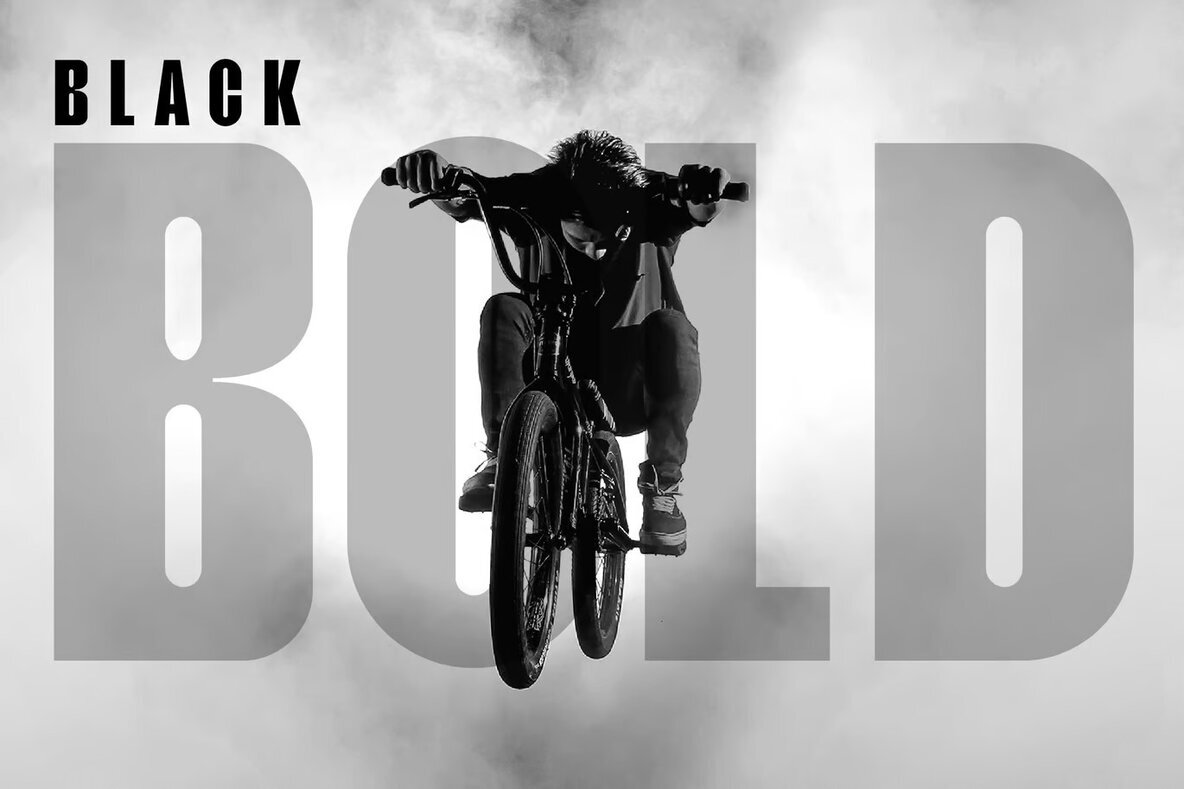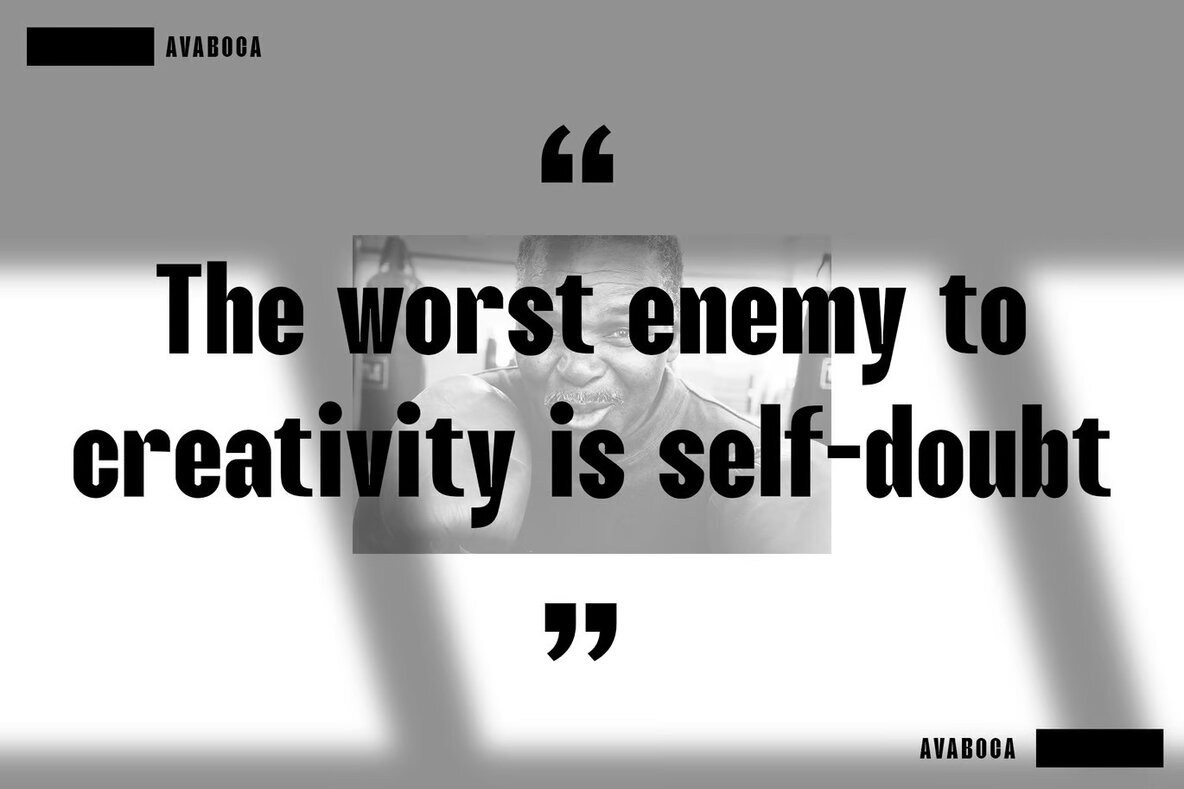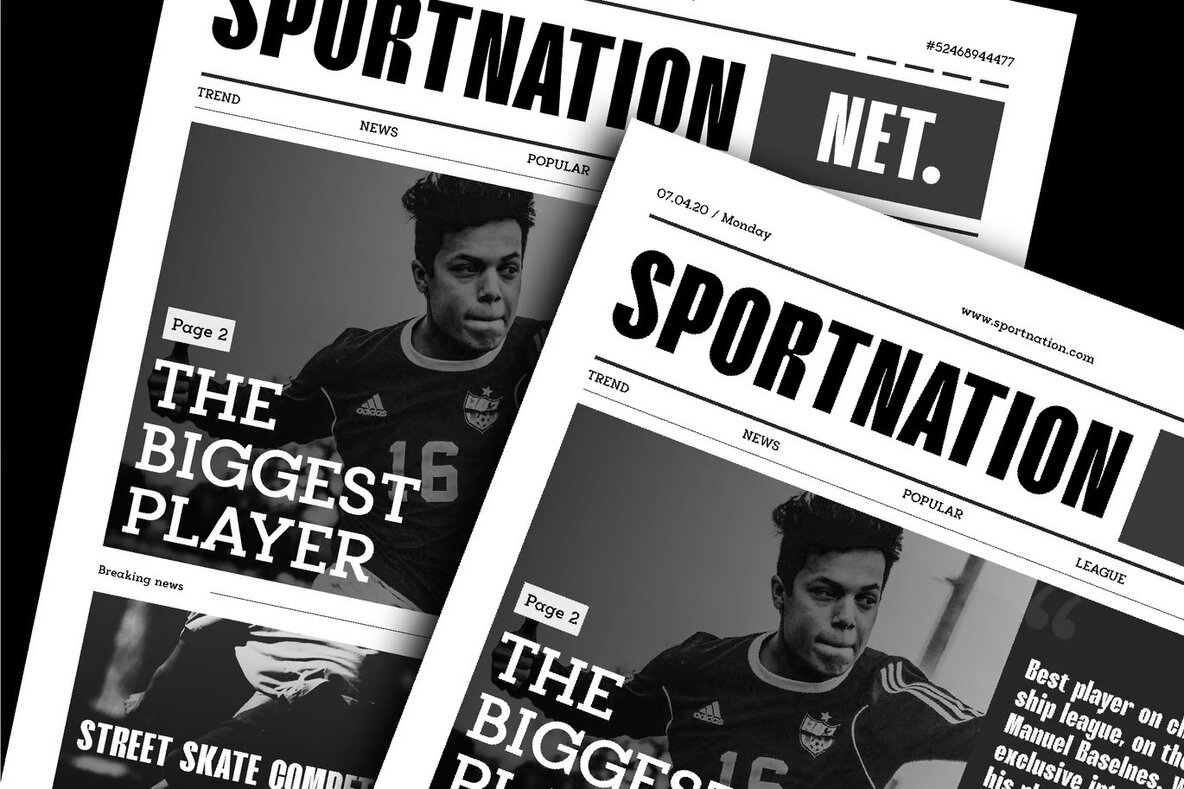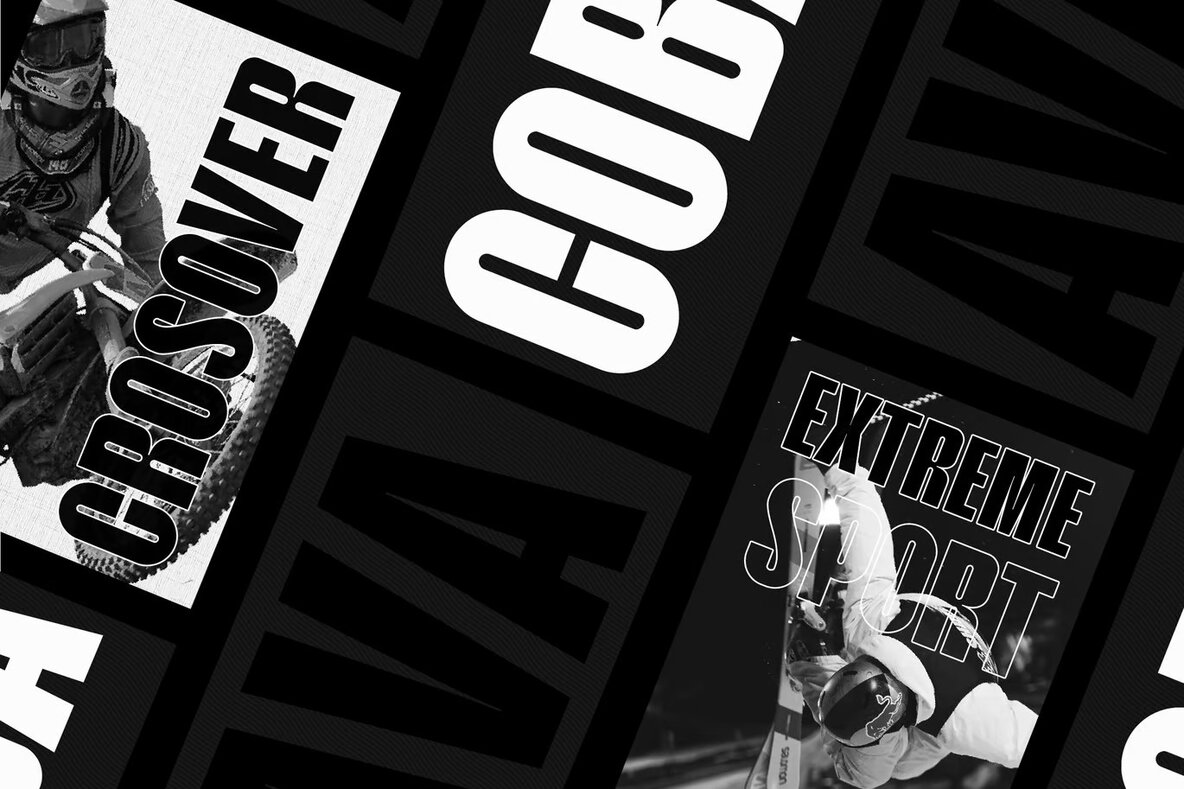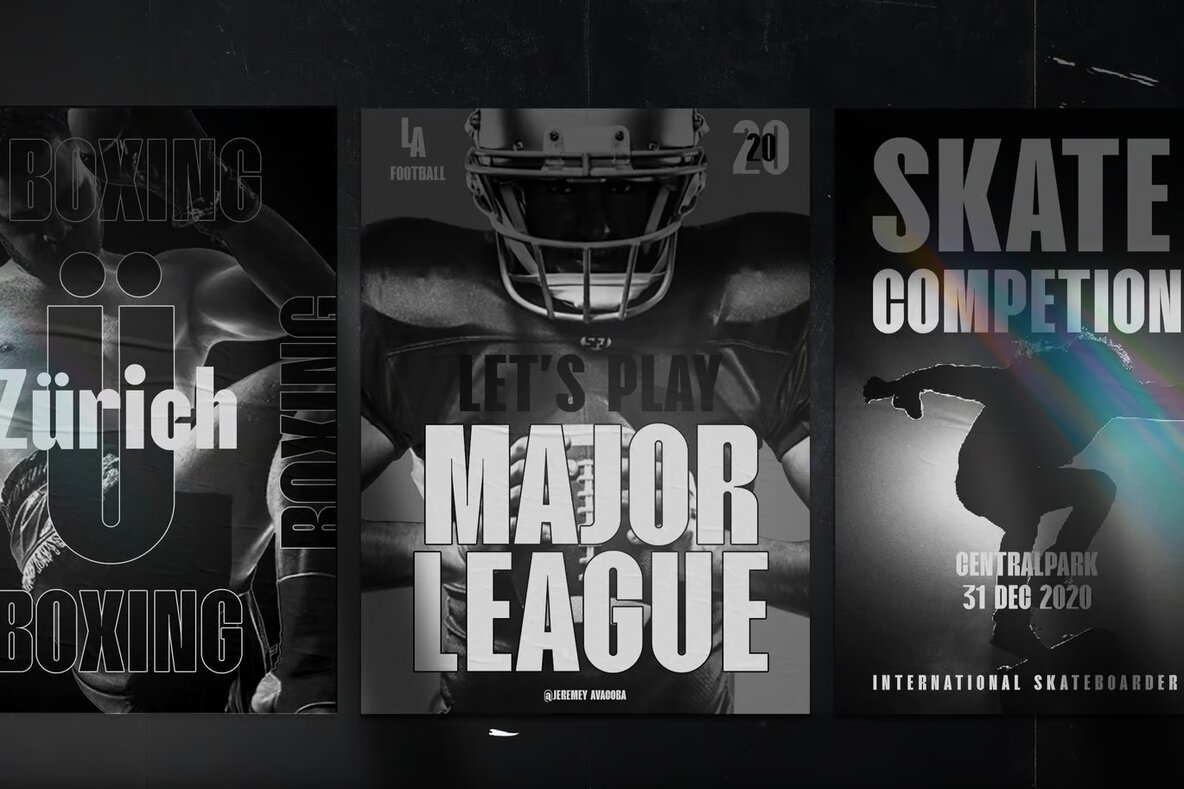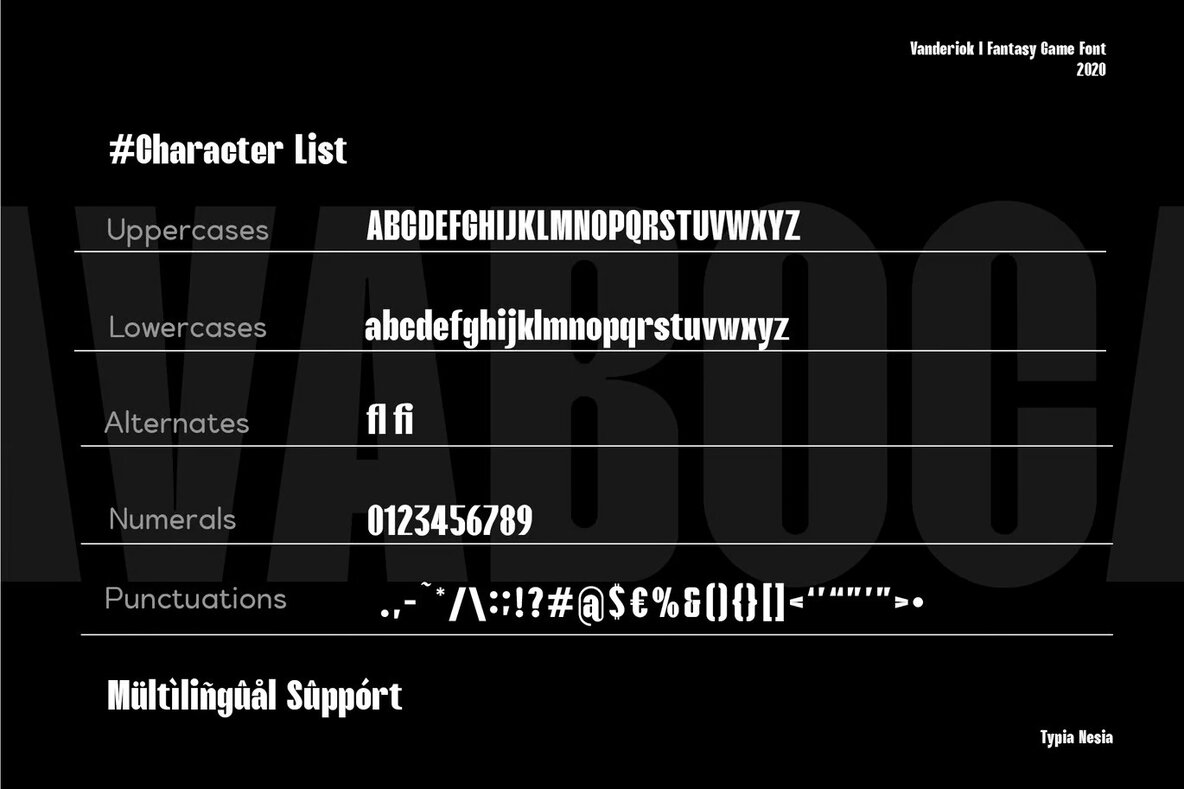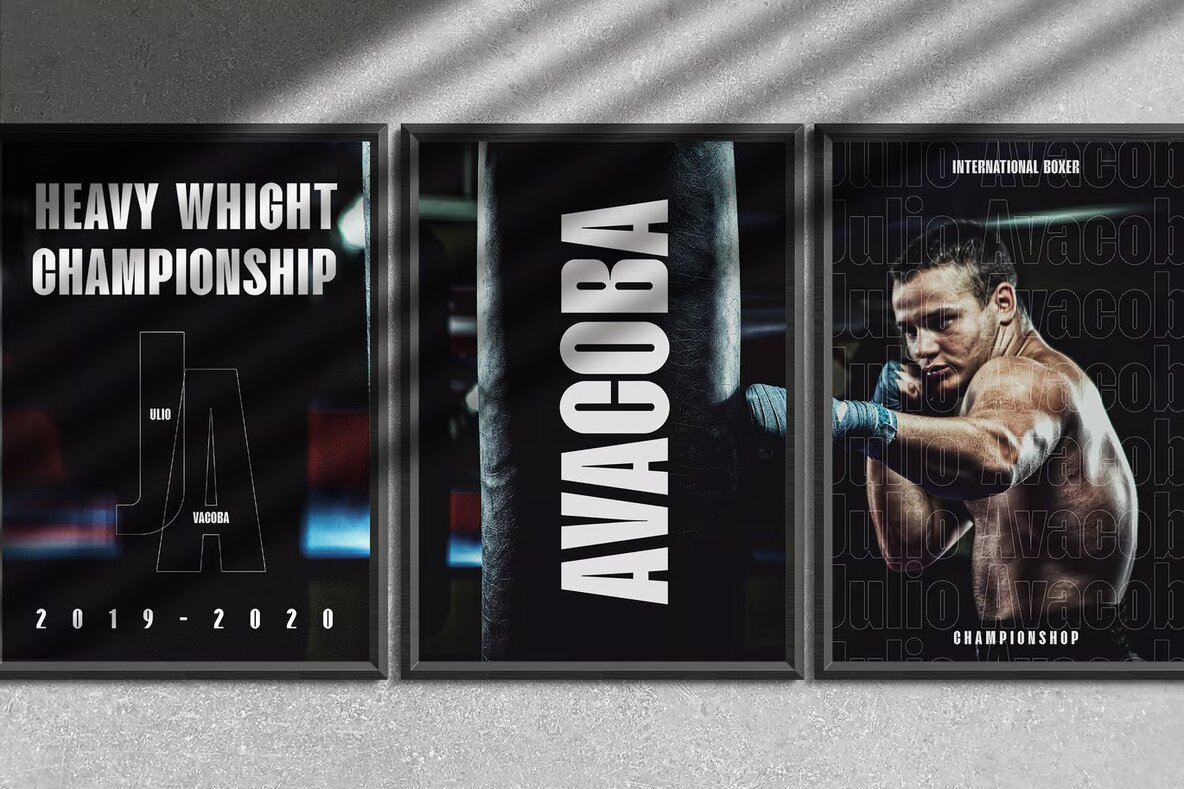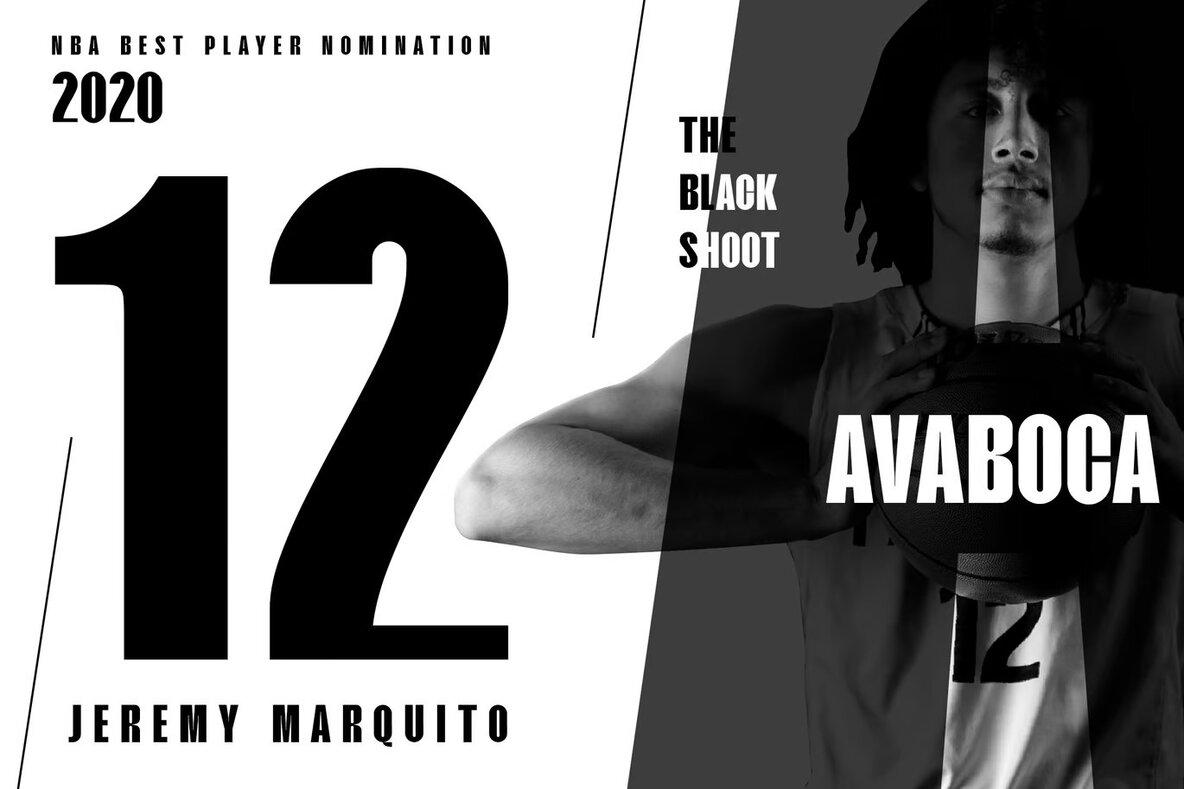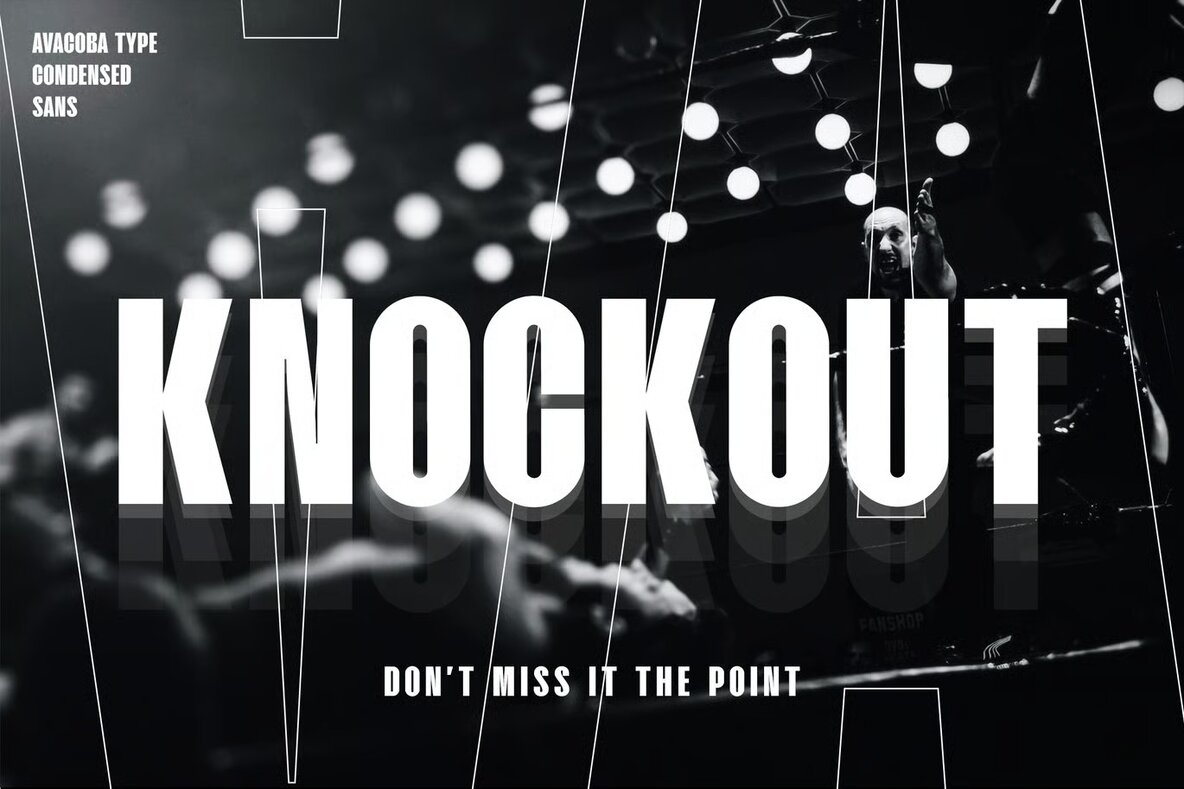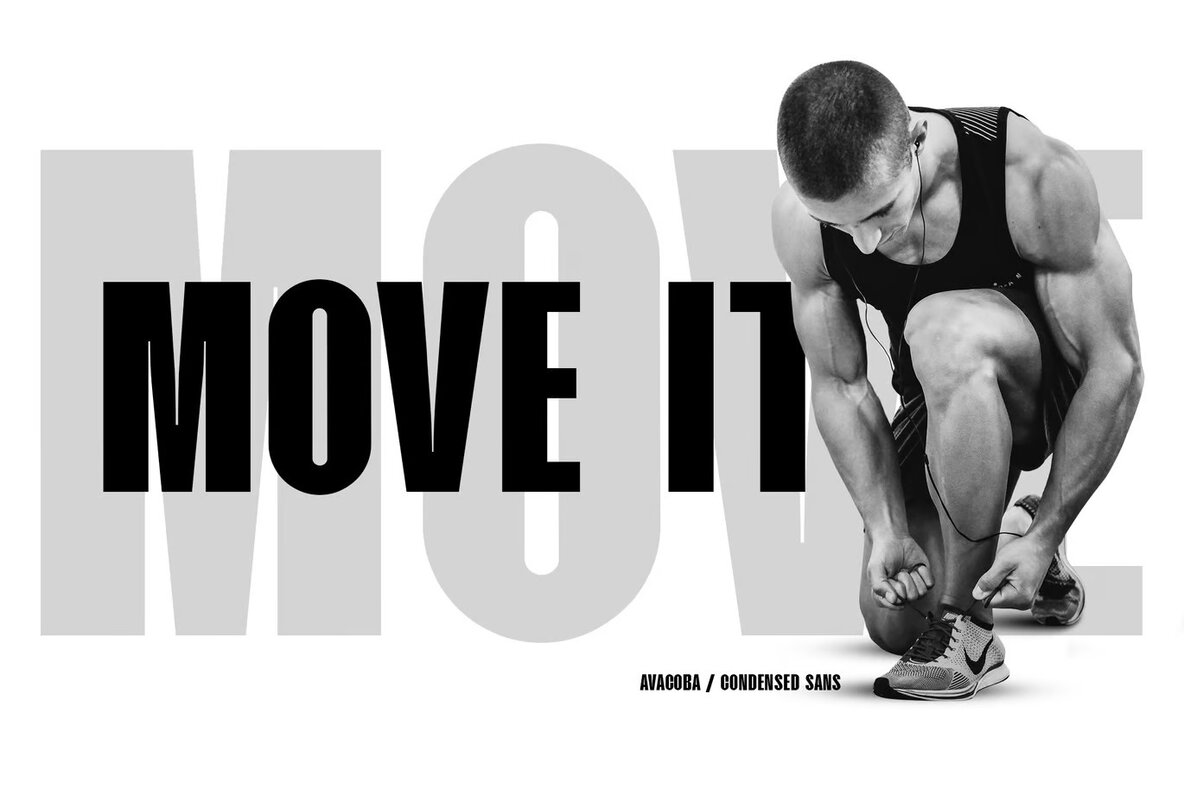
Avaboca Font
Avaboca is a dynamic sport font that features a black condensed sans serif style, making it ideal for a variety of design projects. This sporty sans serif display font is perfect for logo creation, editorial layouts, and stationery designs. Its bold presence also complements sport designs, gaming graphics, and music posters. The font's modern aesthetic makes it suitable for advertising, blog designs, and unique card invitations.
In addition to its visual appeal, Avaboca excels in capturing attention with its clean, impactful design. It is versatile enough for art quotes, home decor accents, book titles, and special event materials. Enhance your projects with the strong and sporty look of Avaboca, ensuring that your work stands out in any setting.